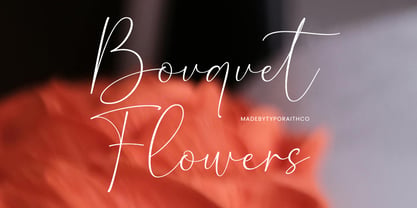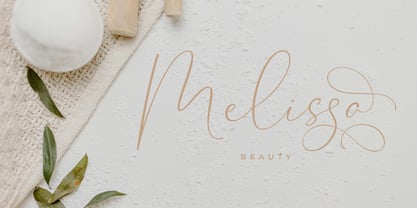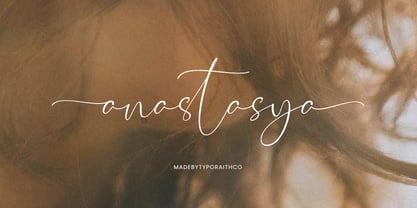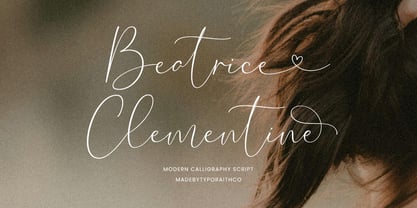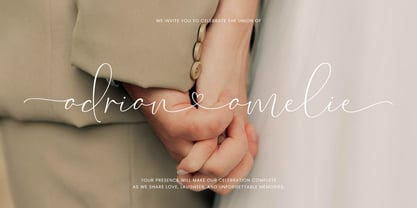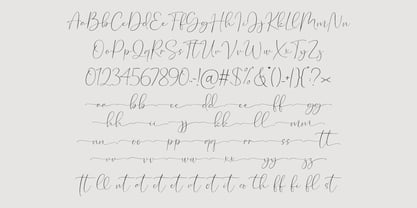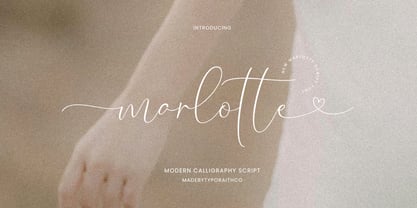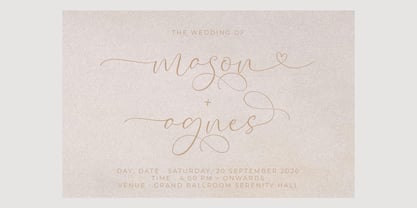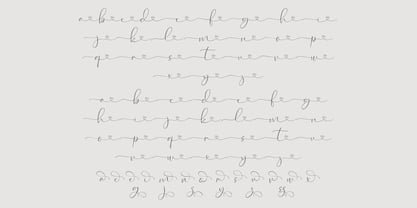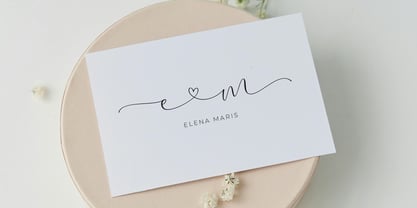
Marlotte
Marlotte is a delicate and graceful modern calligraphy script designed to bring softness, elegance, and charm to your creative projects. With its flowing strokes, refined curves, and natural handwritten feel, Marlotte is perfect for designs that need a romantic and sophisticated touch.
Whether you're creating wedding stationery, branding, or social media content, this script font adds warmth and personality while staying beautifully minimal and timeless.
Perfect for:
- Wedding invitations & stationery
- Branding & logos
- Signature design
- Social media graphics
- Packaging & labels
- Quotes & typography art
- Photography watermark
- Feminine & luxury design
Font Features:
- Elegant flowing letterforms
- Stylish swashes, alternates & Ligatures
- Uppercase & lowercase characters
- Numbers & punctuation
Marlotte is crafted to help your designs feel refined, romantic, and effortlessly beautiful.